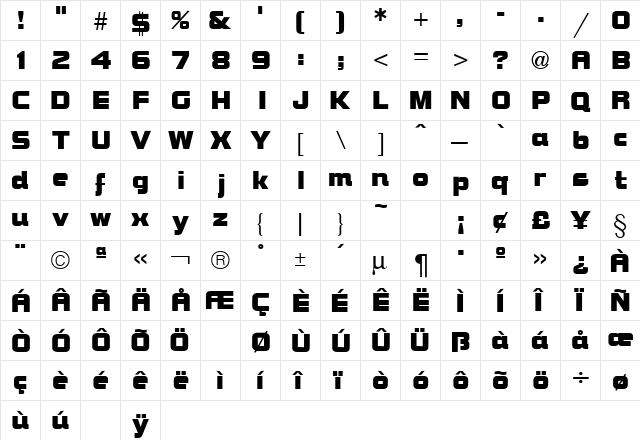
Bolt Bold
Design Context for Bolt Typeface
Bolt offers clean, dependable letterforms without strong stylistic allegiance, making it a practical choice for designers who need flexibility. Its bold stroke weight gives it real presence on the page.